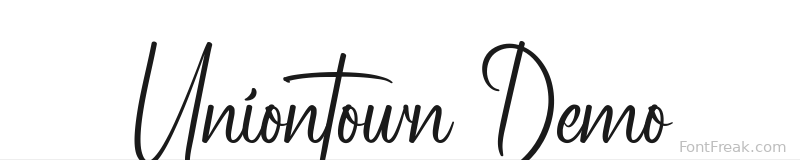
Uniontown Demo
The Uniontown Demo font by Noah Type is a beautifully crafted script typeface that exudes elegance and sophistication. This font showcases a flowing, handwritten style characterized by its smooth curves and dynamic strokes. The stroke weight varies slightly, adding a sense of movement and personality, while the moderate contrast between thick and thin lines enhances its visual appeal. The spacing is well-balanced, ensuring readability while maintaining a charming, organic feel that is typical of script fonts.
Ideal for a variety of design projects, Uniontown Demo shines in settings such as wedding invitations, where its romantic flair can elevate the overall aesthetic. Additionally, it works beautifully for creating eye-catching movie posters, lending a touch of drama and creativity to visual storytelling. Restaurant menus can also benefit from its stylish appearance, making dishes look more inviting and enhancing the dining experience. Content creators aiming for a personal touch in their branding will find this font perfect for logo designs and social media graphics, as it conveys authenticity and warmth.
The target audience for Uniontown Demo includes graphic designers, small business owners, and content creators who seek to add a unique flair to their projects. Its versatility makes it suitable for both print and digital media, allowing for broad applications across various platforms.
What sets the Uniontown Demo font apart is its ability to blend artistic expression with functionality. As a freeware option, it invites designers to explore their creativity without financial constraints, making it an excellent addition to any font library. With the Uniontown Demo font free download, users can easily incorporate this elegant typeface into their designs, enhancing their visual storytelling and leaving a lasting impression.